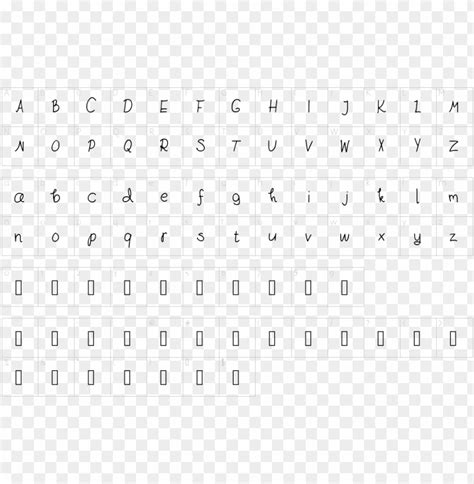
Hey guys! Are you on the hunt for a font that screams unique , bold , and a little bit edgy ? Well, look no further! Today, we’re diving deep into the world of the Blackriver font – a typeface that can seriously elevate your design game. We will explore what makes it so special, where you can snag it for free in TTF format, and how to make the most of it in your projects.
What is Blackriver Font?
Blackriver font is a distinctive typeface characterized by its strong , hand-drawn feel. It often features rough edges, irregular lines, and a generally imperfect aesthetic, which gives it a raw and authentic vibe. This font isn’t your typical clean and polished typeface; instead, it embraces the beauty of imperfection. Think of it as the rebellious cousin of more conventional fonts! The beauty of the Blackriver font lies in its versatility. Whether you’re working on a poster, logo, website, or social media graphic, this font can add a touch of uniqueness and personality that sets your work apart. Its rugged appearance makes it particularly well-suited for projects that aim to convey a sense of authenticity , grit , or vintage charm . Imagine using it for the title of a rock band’s album, the branding of a coffee shop with an industrial-chic vibe, or the header of a blog about outdoor adventures. The possibilities are endless!
Furthermore, the Blackriver font is designed to be legible and functional, ensuring that your message is conveyed effectively. It includes a full set of uppercase and lowercase letters, numbers, punctuation marks, and symbols, giving you everything you need to create professional-quality designs. Plus, it supports multiple languages, making it suitable for international projects. With its unique personality and versatility, the Blackriver font is a must-have in any designer’s toolkit. So why settle for ordinary when you can add a touch of raw beauty to your next project with the Blackriver font?
Why Choose Blackriver Font?
So, why should you even consider Blackriver font for your next project? Let’s break it down. Firstly, its distinctive style helps you stand out. In a world saturated with generic fonts, Blackriver offers a refreshing alternative that grabs attention and leaves a lasting impression. If you’re aiming for a look that’s anything but ordinary, this font is your secret weapon. Secondly, Blackriver font is incredibly versatile. Don’t let its rugged appearance fool you; this font can be used in a wide range of design projects, from branding and advertising to web design and apparel. Whether you’re creating a logo for a motorcycle club or designing a poster for an indie film festival, Blackriver font has got you covered. Thirdly, when you download Blackriver font in TTF format, you’re getting a font that’s compatible with a wide range of software and operating systems. Whether you’re using Adobe Photoshop, Illustrator, InDesign, or even Microsoft Word, you can easily install and use Blackriver font without any compatibility issues. This makes it a hassle-free choice for designers of all skill levels.
Another compelling reason to choose Blackriver font is its ability to evoke emotions and create a specific mood. Depending on how you use it, this font can convey feelings of strength , rebellion , nostalgia , or even playfulness . By carefully considering the context of your project and the message you want to communicate, you can harness the emotional power of Blackriver to create designs that resonate with your audience. Moreover, Blackriver font is often available for free (for personal use), making it an accessible option for designers on a budget. There are many websites and online resources that offer free downloads of the Blackriver font in TTF format, allowing you to experiment with it without breaking the bank. However, always be sure to check the license agreement before using any font for commercial purposes. Ultimately, Blackriver font is a great choice for designers who want to add a touch of uniqueness , personality , and edge to their work. Its distinctive style, versatility, compatibility, emotional power, and affordability make it a valuable asset in any designer’s toolkit.
Tips for Using Blackriver Font Effectively
Now that you’ve got the Blackriver font installed, let’s talk about how to use it effectively. Just because you have a cool font doesn’t mean it will automatically make your designs amazing. Here are a few tips to keep in mind: First, use it sparingly. Blackriver font is a strong and distinctive font, so it’s best used sparingly. Overusing it can make your designs look cluttered and overwhelming. Instead, use it for headings, titles, or other key elements that you want to stand out. Second, pair it with a simple sans-serif font. Because Blackriver font is so bold and eye-catching , it’s important to pair it with a more neutral font that won’t compete for attention. A simple sans-serif font like Arial, Helvetica, or Open Sans can be a great choice. Third, pay attention to kerning and leading. Kerning (the space between individual letters) and leading (the space between lines of text) can have a big impact on the readability of your designs. Make sure to adjust the kerning and leading of your Blackriver font to ensure that it’s easy to read.
Fourth, experiment with different sizes and weights. Blackriver font comes in a variety of sizes and weights, so don’t be afraid to experiment with different combinations to see what works best for your project. A larger size can make your headings more impactful, while a lighter weight can make your body text more readable. Fifth, consider the context of your project. The Blackriver font is best suited for projects that aim to convey a sense of authenticity , grit , or vintage charm . If you’re working on a project that requires a more clean and polished look, you may want to choose a different font. Sixth, use it to create contrast. One of the best ways to use Blackriver font effectively is to use it to create contrast in your designs. By pairing it with a more subdued font or a contrasting color, you can make your headings and titles really pop. Seventh, don’t be afraid to break the rules. Ultimately, the best way to learn how to use Blackriver font effectively is to experiment and see what works best for you. Don’t be afraid to break the rules and try new things. The most important thing is to have fun and let your creativity shine. By following these tips, you’ll be able to use the Blackriver font to create designs that are both stylish and effective . So go ahead, give it a try and see what you can create!
So there you have it! Everything you need to know about the Blackriver font , including what it is, why you should use it, where to find it for free , how to install it, and tips for using it effectively. With its unique and bold style, the Blackriver font is a valuable asset in any designer’s toolkit. Whether you’re working on a branding project, a website design, or a social media graphic, this font can help you create designs that stand out from the crowd. Just remember to use it sparingly, pair it with a simple sans-serif font, and pay attention to kerning and leading. And most importantly, have fun and let your creativity shine! Now go forth and create something amazing with the Blackriver font ! You got this!